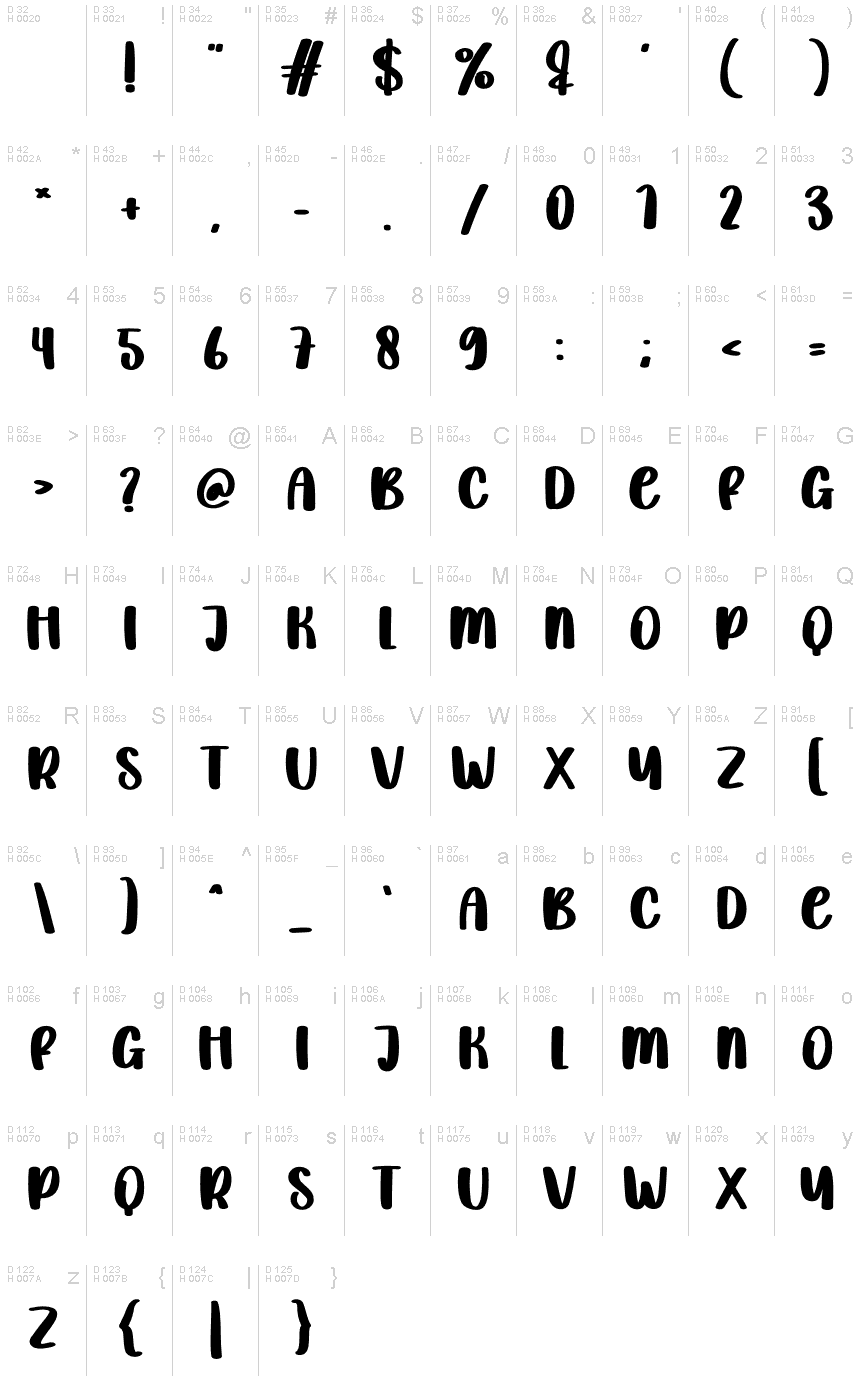
Christmas Planner
Christmas Planner, crafted by Scratchones, brings the joyous spirit of the holidays to your fingertips with its bold, smooth brush style. This font exudes a cheerful aesthetic that pairs seamlessly with festive content and holiday-themed design projects. Its smooth brush strokes capture the handmade quality of holiday greetings, while its bold weight ensures legibility and impact in various applications.
With Christmas Planner, your creative works—from seasonal marketing materials to personalized gift tags—will carry an air of warmth and sincerity. The font's approachable character makes it ideal for invitations, greeting cards, and any project seeking to convey a sense of comfort and celebration.
Embrace the festive charm with Christmas Planner—a typeface that is not only visually appealing but also versatile enough to enhance your designs with a touch of holiday cheer.